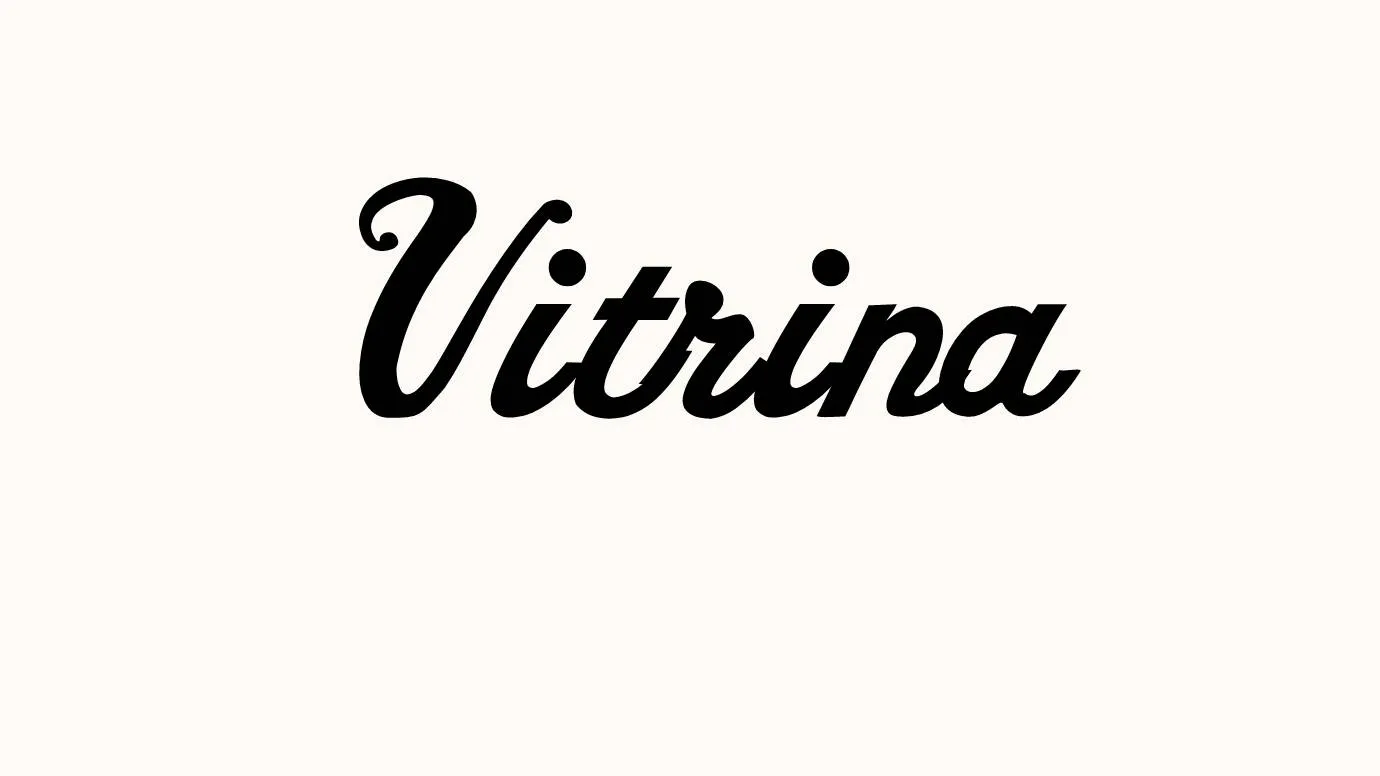
Vitrina Font Family is a very beautiful handwritten typeface and you can make so many interesting projects by using this font. It was designed by Pablo A. Medina and manufactured by Type Associates.
Vitrina Font